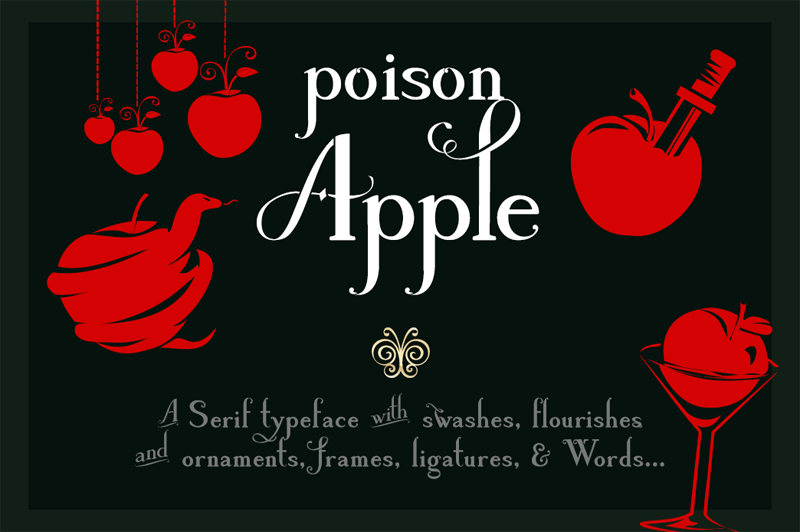
Font name: | Poison Apple |
Author: | Violet MX |
A font family in Regular, Bold, Italic, Poison Apple features swashes, serifs, Stylistic Alternates, (some) ligatures, frames, ornaments & fleurons, plus Words. |